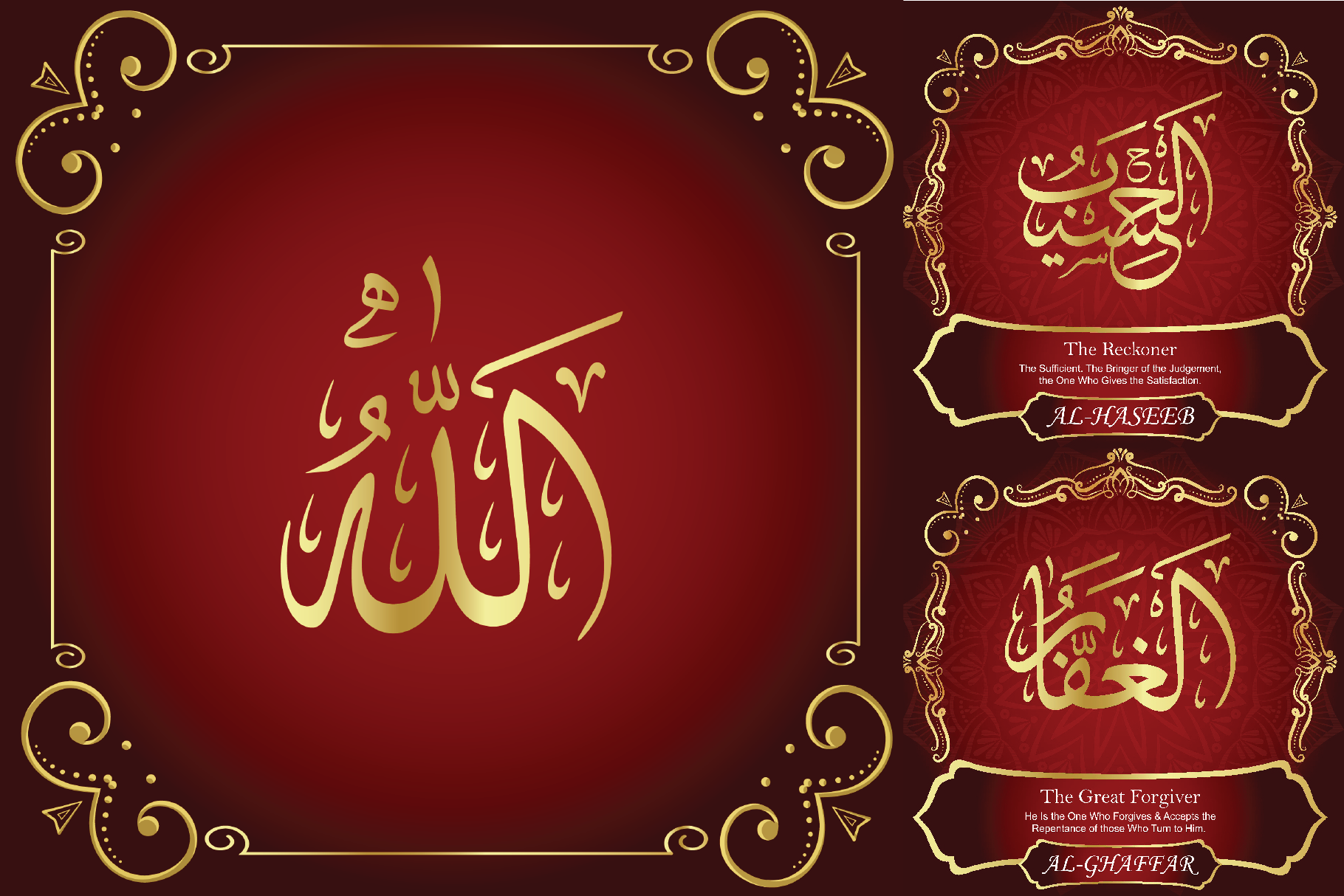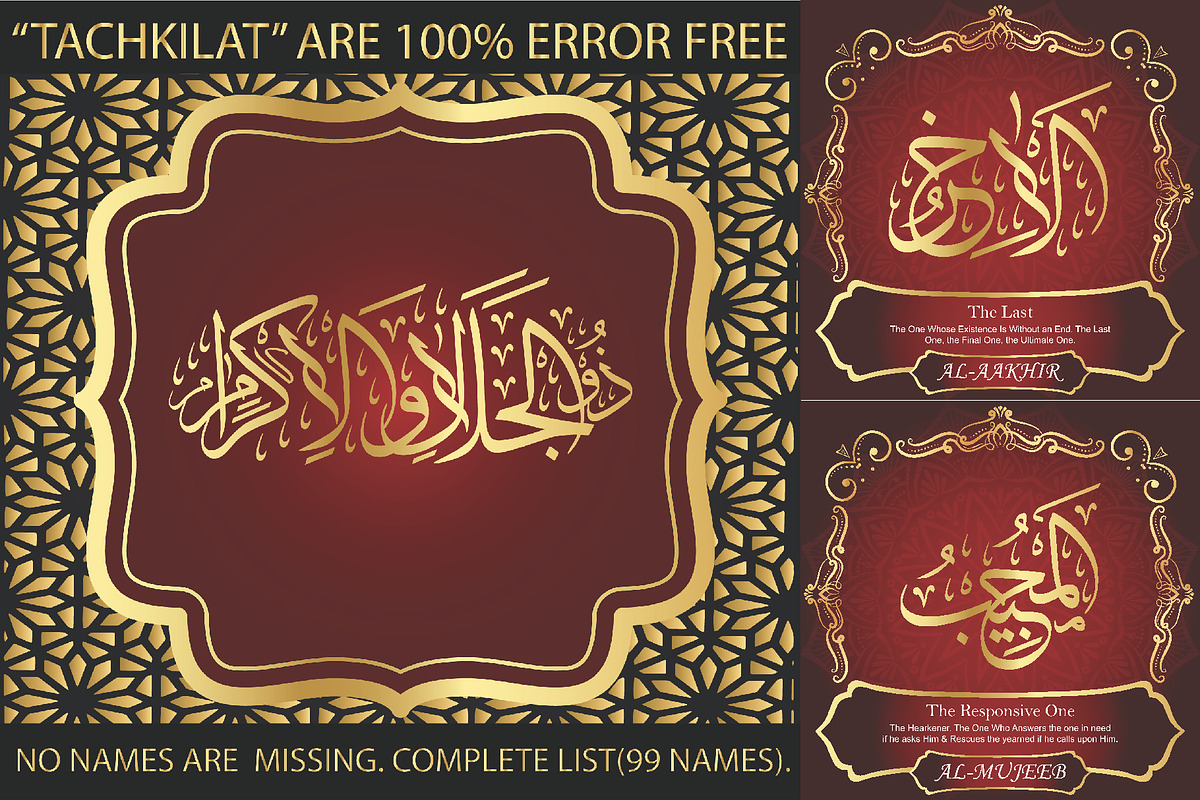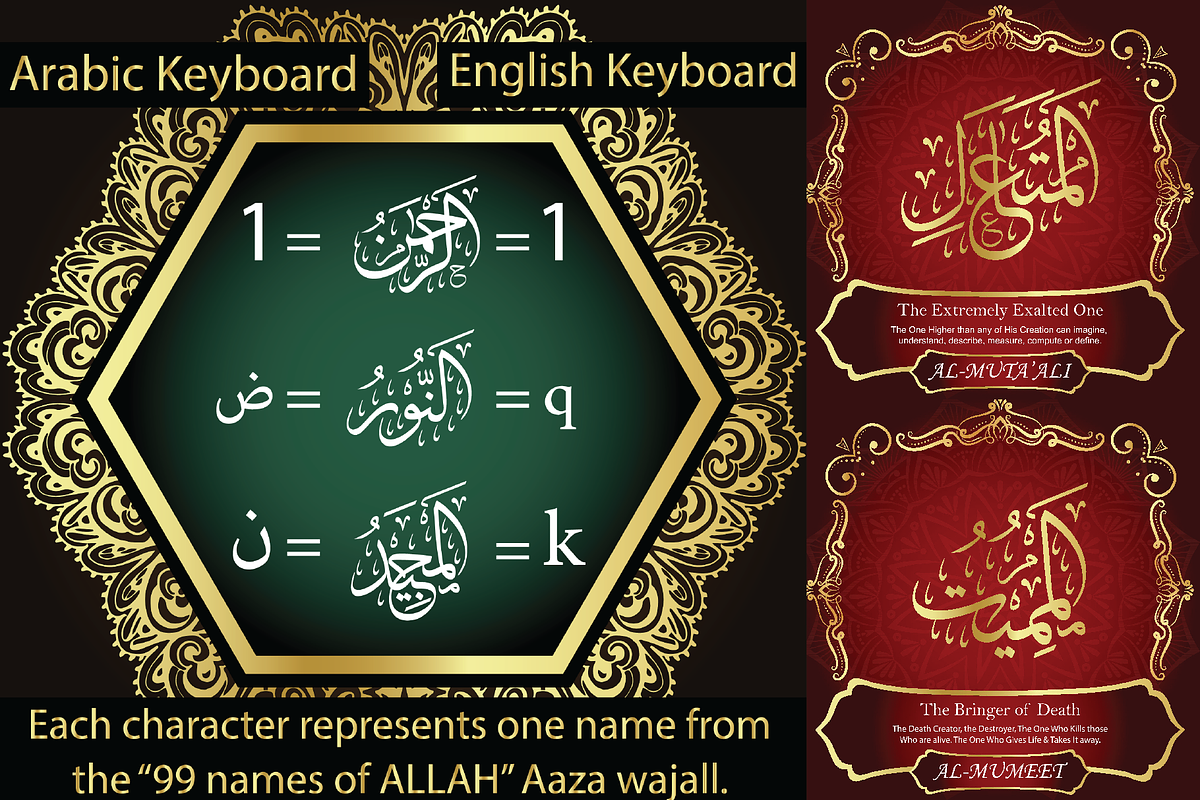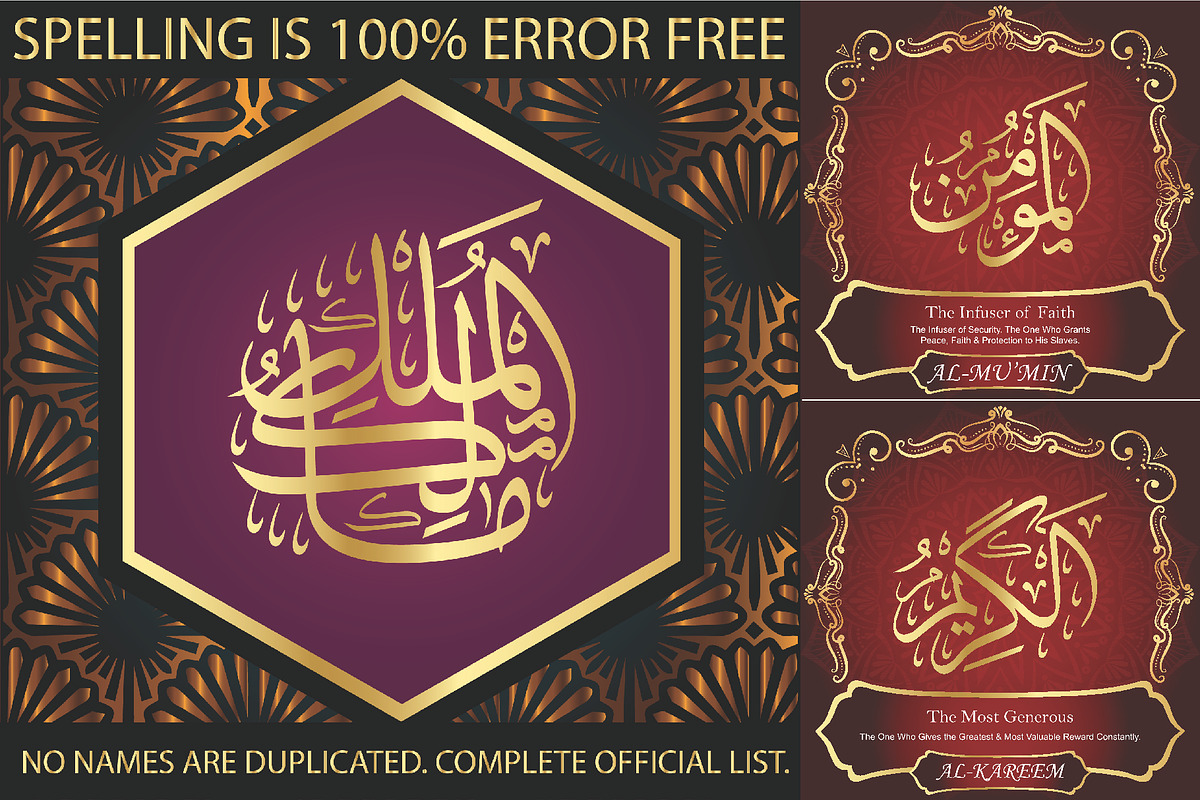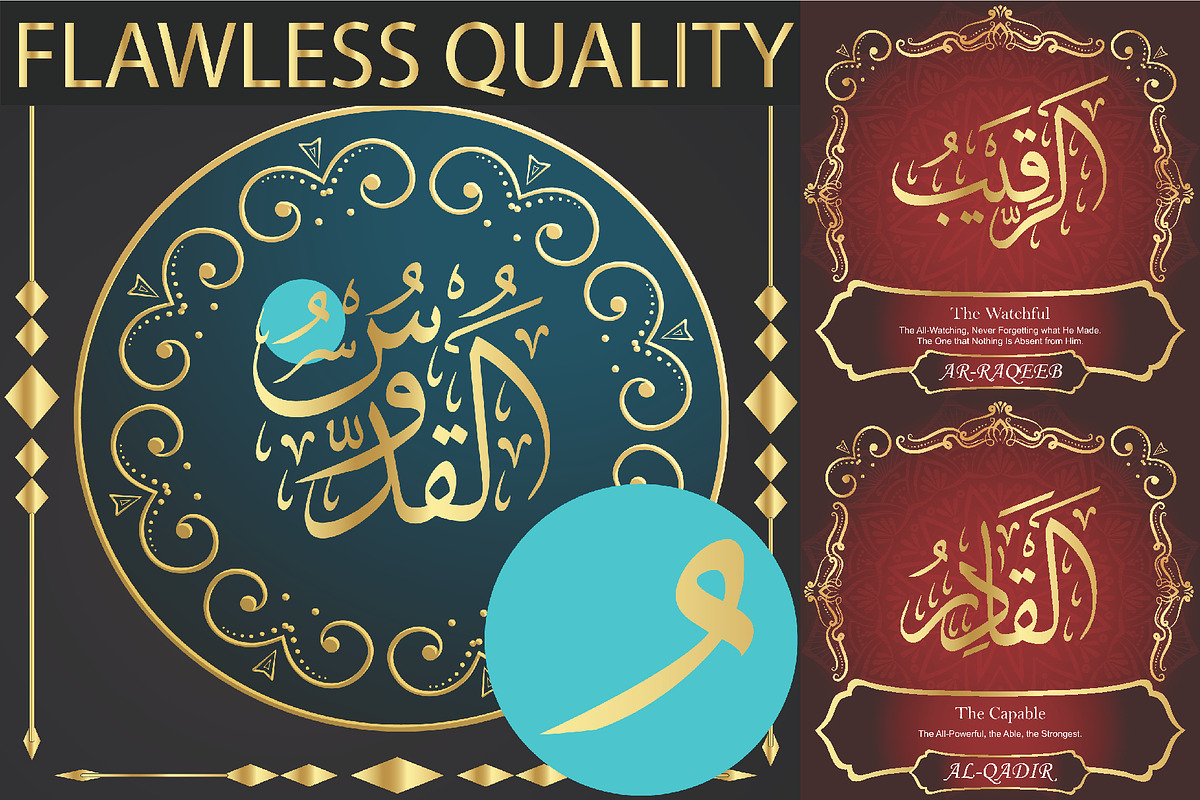
99 Names of ALLAH "Attached" Font
We have transformed the “99 names of ALLAH” into a font. That means each key on your keyboard represents 1 of the 99 names of ALLAH Aaza Wajal. The fonts work with both the English and Arabic Keyboards.
We call this Calligraphy "Attached" because the "alef" and "lam" are attached together. The first "Alef" has a "fatha", this indicates to pronounce the first letter. So instead of saying "R-RAHMAAN" you say "AR-RAHMAAN" (in the zip file you will find a pdf file explaining the differences in the "harakat", pronunciation & spelling according to the Holy Quran). You will also notice that the decorative letters in this font are bigger than usual, we also used the traditional "soukoun" instead of the "Quranic soukoun" & we were a little bit more generous than usual with the decorative symbols. Decorative letters used in this calligraphy: "Mim, Aain, Sin, HHe, He, Kaf, Alef, Tah & Saad".
Purpose & use:
- Writers: Highlight the names in your texts in beautiful Islamic calligraphy.
- Editors: Use with kinetic typography templates (AE) & editing software.
- Designers: The very small details in the names does not affect the quality. Rest assured it is flawless.
The MOST IMPORTANT THING about this list is that all the names are 100% Error Free, and you can use them with your eyes closed. All the “Tachkilat” are 100% Error Free, all the "Spelling" is 100% Error Free, and they all have been written in accordance with the Holy Quran. No names are missing and no names are duplicated. The list is complete "99 names +1". The +1 is the name “ALLAH” 'Aza wajal.
Another important thing is how we use the decorative letters. In every font you will see small decorative letters, these letters are used only in accordance with their respective letters to indicate pronunciation & we don't include them randomly. That means "mim" on top or below the letter "mim", "sin" on top or below the letter "sin", and so on and so forth.